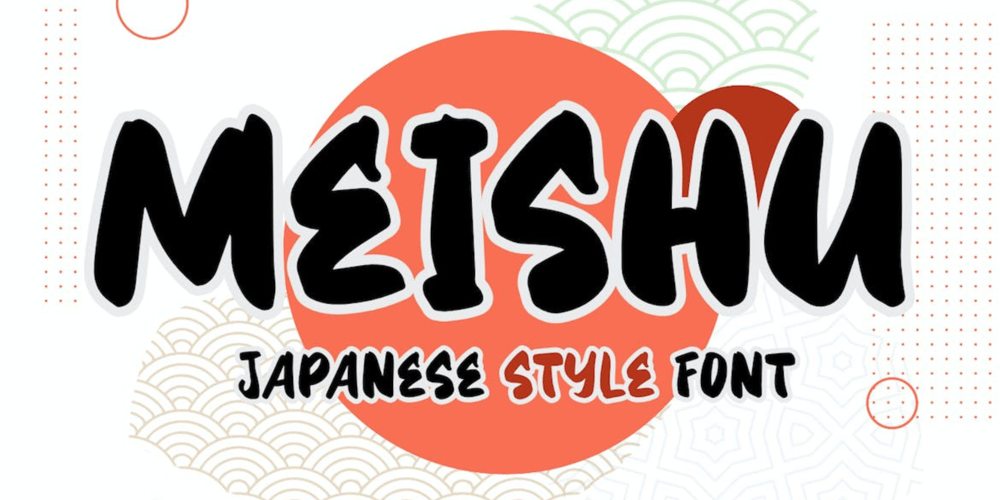
Meishu Font Family was designed by Irpan Maulana and published by Create Big Supply. Meishu contains 1 styles and family package options. Discover Meishu, a captivating Japanese brush font that combines the beauty of traditional calligraphy with modern design elements. With its strong and natural stroke style, Meishu brings an authentic and artistic touch to your projects. This versatile font is perfect for various applications, including logos, labels, magazines, books, greeting cards, packaging, novels, and advertising materials.Meishu captures the essence of Japanese brushwork, evoking elegance and grace in every character. Its blend of uppercase and lowercase letters adds visual interest and flexibility to your typography. The font also includes numbers and punctuation marks, enabling seamless integration into your designs.In addition to its aesthetic appeal, Meishu ensures multilingual support, allowing you to communicate your message effectively across different languages. Whether you’re creating a design for a local or international audience, this font has you covered.